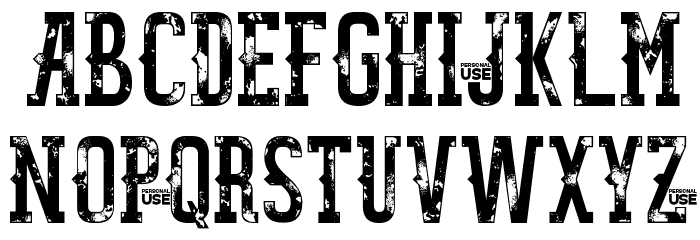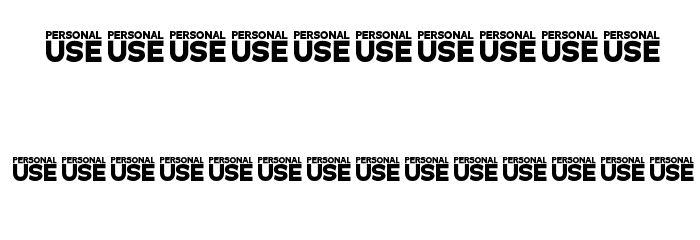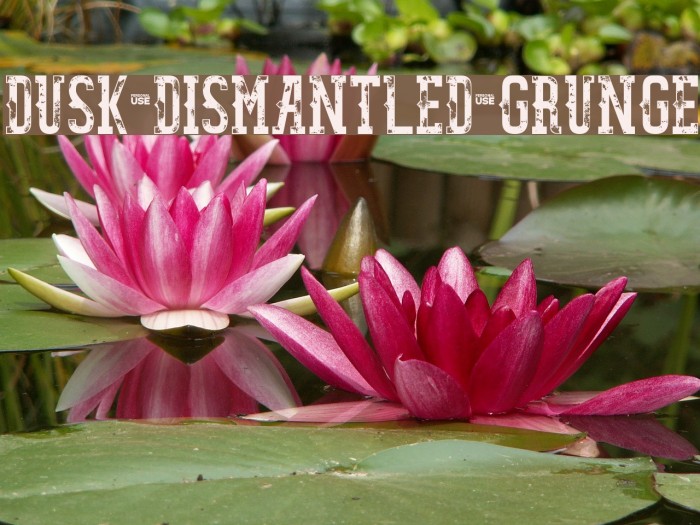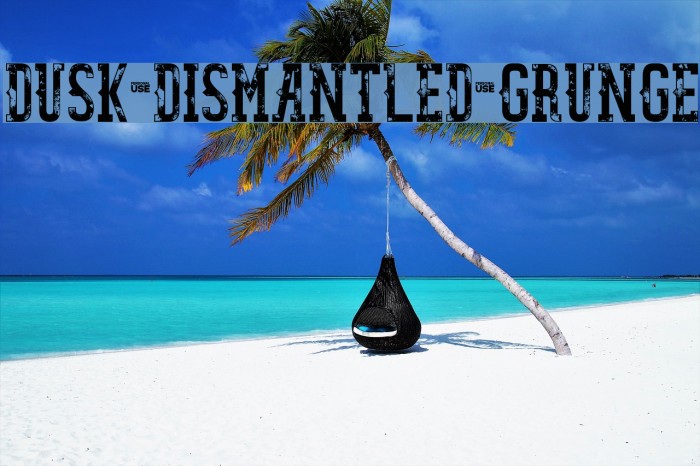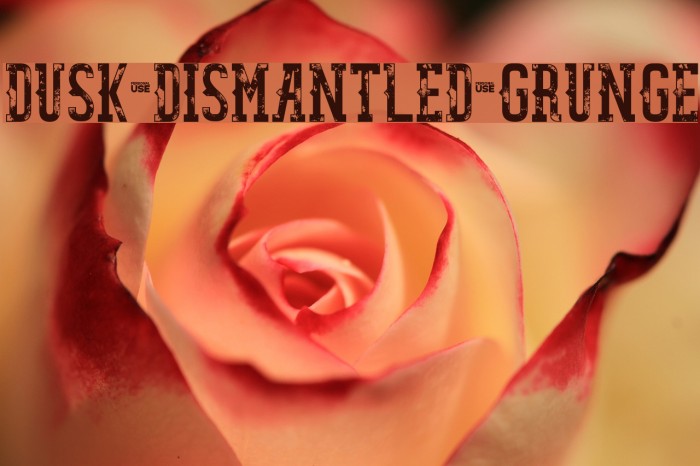
Dusk Dismantled Grunge Font
This font features a distressed, grunge aesthetic with a bold and rugged appearance. The characters are heavily textured, giving them a worn and weathered look, reminiscent of old signage or vintage posters. The uppercase letters are prominent, with a strong presence that commands attention. The font's irregularities and rough edges add to its unique charm, making it ideal for projects that require a touch of edginess or a retro vibe. Its boldness ensures readability while maintaining an artistic flair.
A bold, distressed font with a grunge aesthetic and vintage appeal.
- Proposed Projects: Ideal for music album covers, event posters, branding for edgy or alternative products, and any design needing a vintage or rugged look.
- Overall Style: Vintage